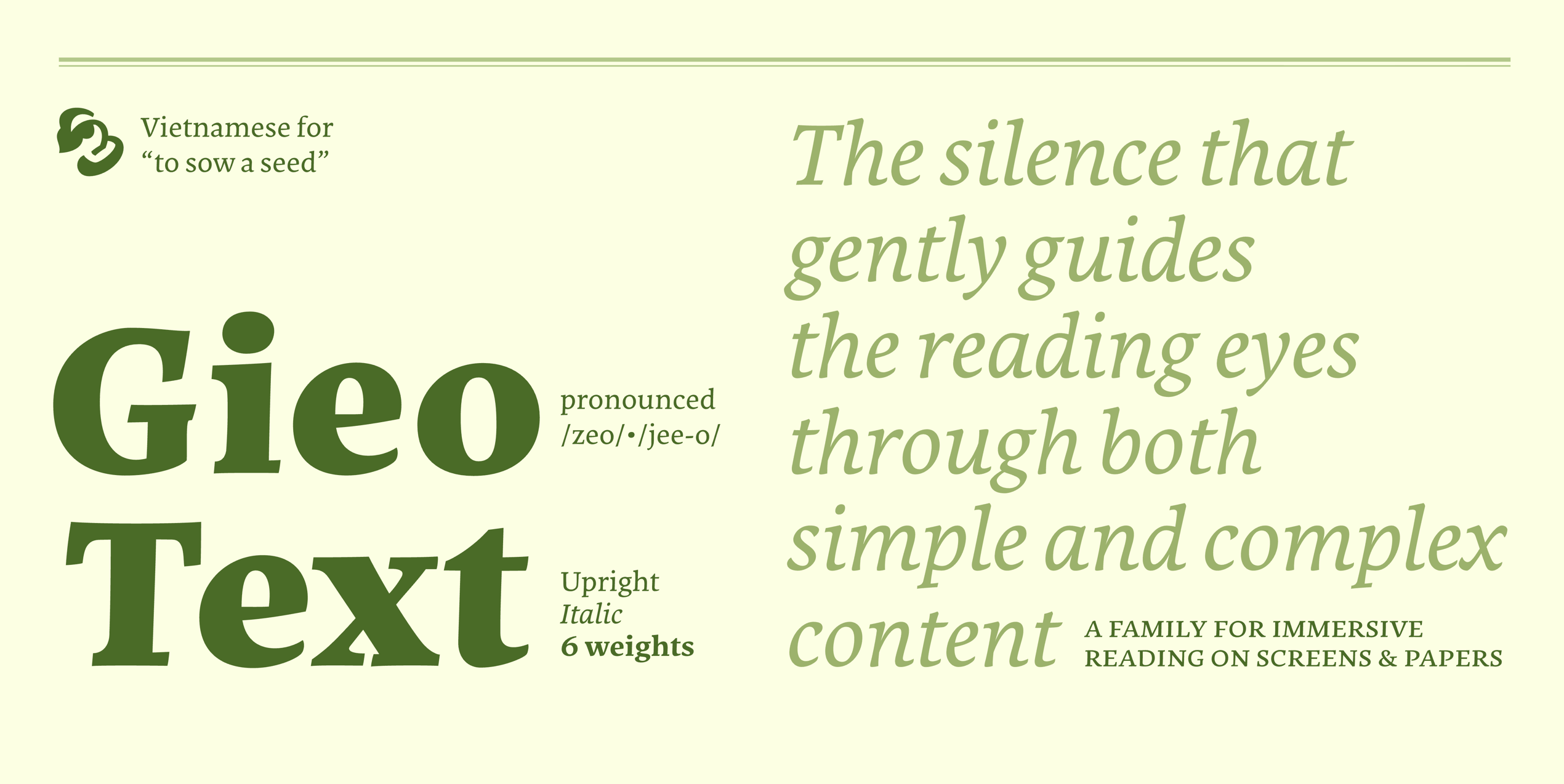
Gieo Text is a super exciting typeface designed by Linh Nguyễn from ÁccentiaType studio. This project actually started out as a practical assignment during the Master of Typeface Design (MATD) 20/21 program at the University of Reading. The name “Gieo” comes directly from the Vietnamese word for “to sow seeds,” giving the project a beautifully organic and meaningful vibe.
Drawing inspiration from classic Venetian styles, Gieo Text features a generous x-height, making it absolutely perfect for on-screen reading and digital typesetting. The font delivers a super calm and relaxing reading experience thanks to its smooth, flowing curves that mimic broad-nibbed pen strokes. The contrast is distinct yet incredibly gentle on the eyes.
A major highlight of Gieo Text is how the letters lean slightly to the right. Combined with open forms, this creates a continuous visual rhythm that feels just like handwriting, keeping readers effortlessly engaged. Overall, the typeface strikes a beautiful balance between traditional and contemporary design, seamlessly blending soft curves with sharp edges.
The Gieo Text family packs a punch with 12 fonts in total, ranging all the way from Regular and Italic to Extra Bold and Black Italic. It also comes loaded with advanced OpenType features like Contextual Alternates, Ligatures, Small Capitals, and versatile numeral styles. It is a fantastic tool for designers working on editorial layouts, book covers, brochures, or brand identity projects.
Gieo Text là một bộ font chữ cực kỳ thú vị đến từ nhà thiết kế Linh Nguyễn của studio ÁccentiaType. Dự án này ban đầu là một bài tập thực tế trong chương trình Thạc sĩ Thiết kế Chữ (MATD) khóa 20/21 tại Đại học Reading. Cái tên “Gieo” được lấy nguyên bản từ hành động “gieo hạt” trong tiếng Việt, mang một tinh thần rất tự nhiên và ý nghĩa.
Khơi nguồn cảm hứng từ phong cách Venetian cổ điển, Gieo Text sở hữu phần x-height lớn nên cực kỳ tối ưu cho việc hiển thị và đọc văn bản trên màn hình kỹ thuật số. Bộ font này mang lại một trải nghiệm đọc rất dễ chịu và thư thái nhờ những đường cong mượt mà, mô phỏng lại những nét mực từ ngòi bút dẹt (broad-nibbed pen). Độ tương phản của font rõ ràng nhưng lại rất nhẹ nhàng, vừa vặn với mắt người xem.
Điểm cộng lớn của Gieo Text là các con chữ có độ nghiêng nhẹ về bên phải kết hợp cùng phom dáng mở (open forms), tạo ra một dòng chảy thị giác liên tục như nét viết tay, giúp kích thích mạch đọc của người xem. Tổng thể bộ chữ là sự cân bằng tuyệt vời giữa yếu tố truyền thống và hiện đại, đan xen khéo léo giữa những đường nét mềm mại và các góc cạnh sắc sảo.
Gia đình Gieo Text có tổng cộng 12 font bao gồm đầy đủ các định dạng từ Regular, Italic cho đến Extra Bold và Black Italic. Bộ font này cũng đi kèm rất nhiều tính năng OpenType nâng cao như Contextual Alternates, Ligatures, Small Capitals hay các định dạng chữ số đa dạng, hỗ trợ đắc lực cho các designer khi làm layout tạp chí, thiết kế bìa sách, brochure hay phát triển hệ thống nhận diện thương hiệu.